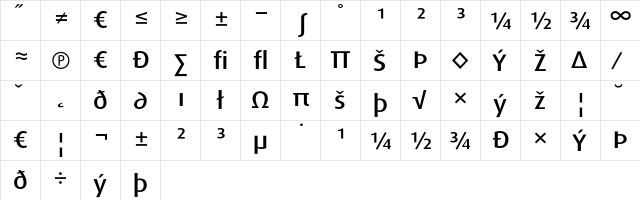
DaxWide MediumExpert
Design Context for DaxWide Typeface
DaxWide takes a measured approach to typography — its balanced proportions and neutral character make it a reliable workhorse for both digital and print work.